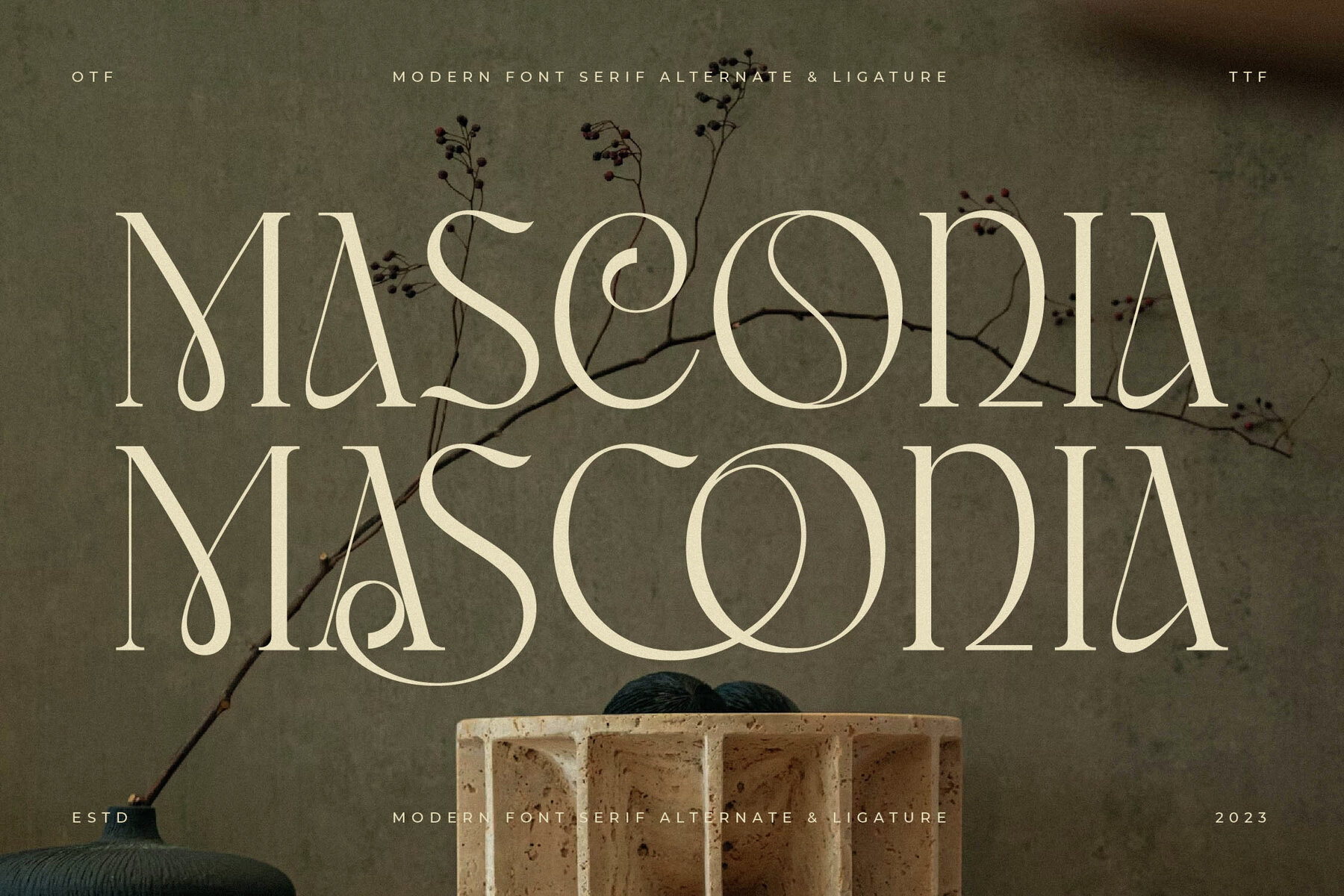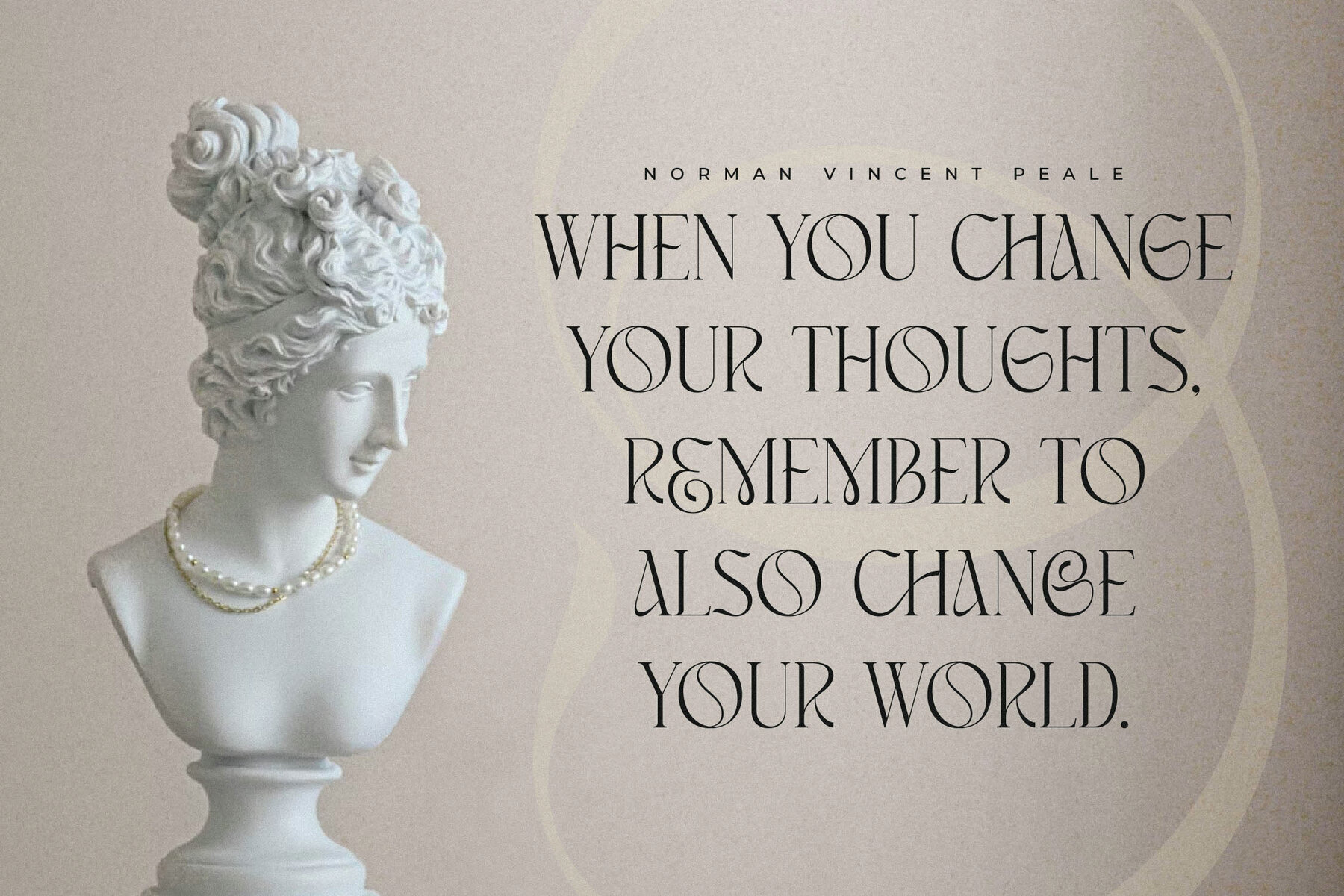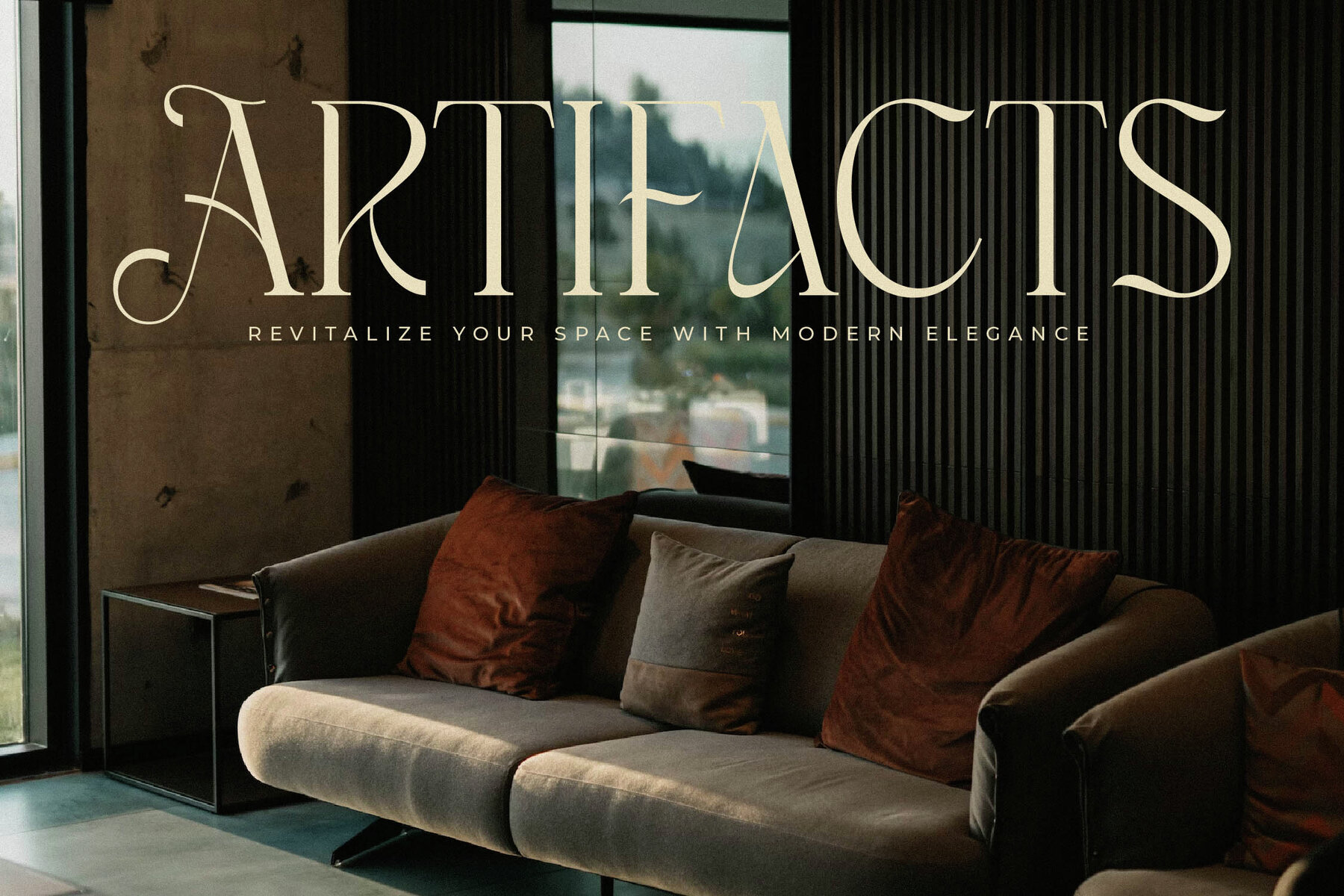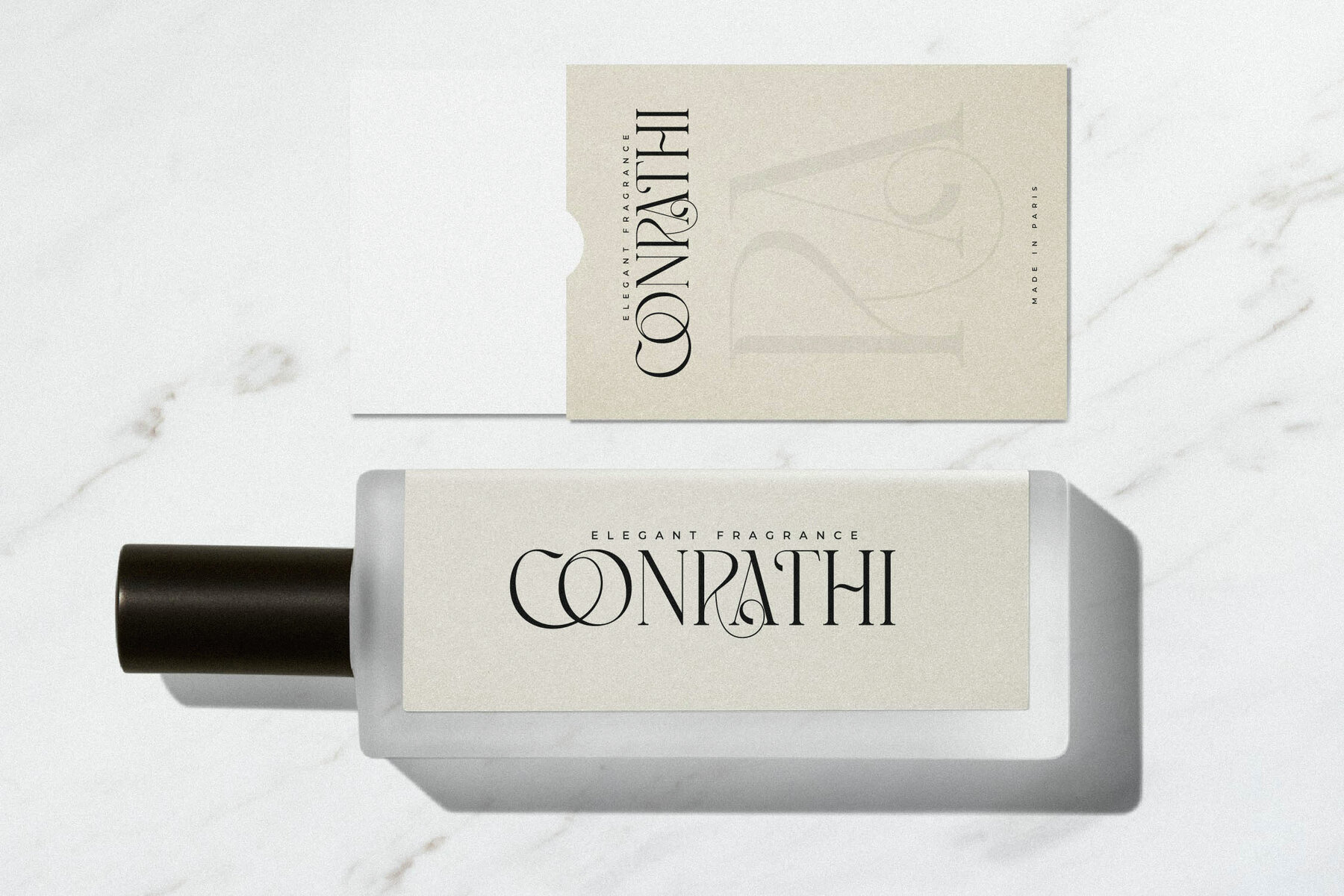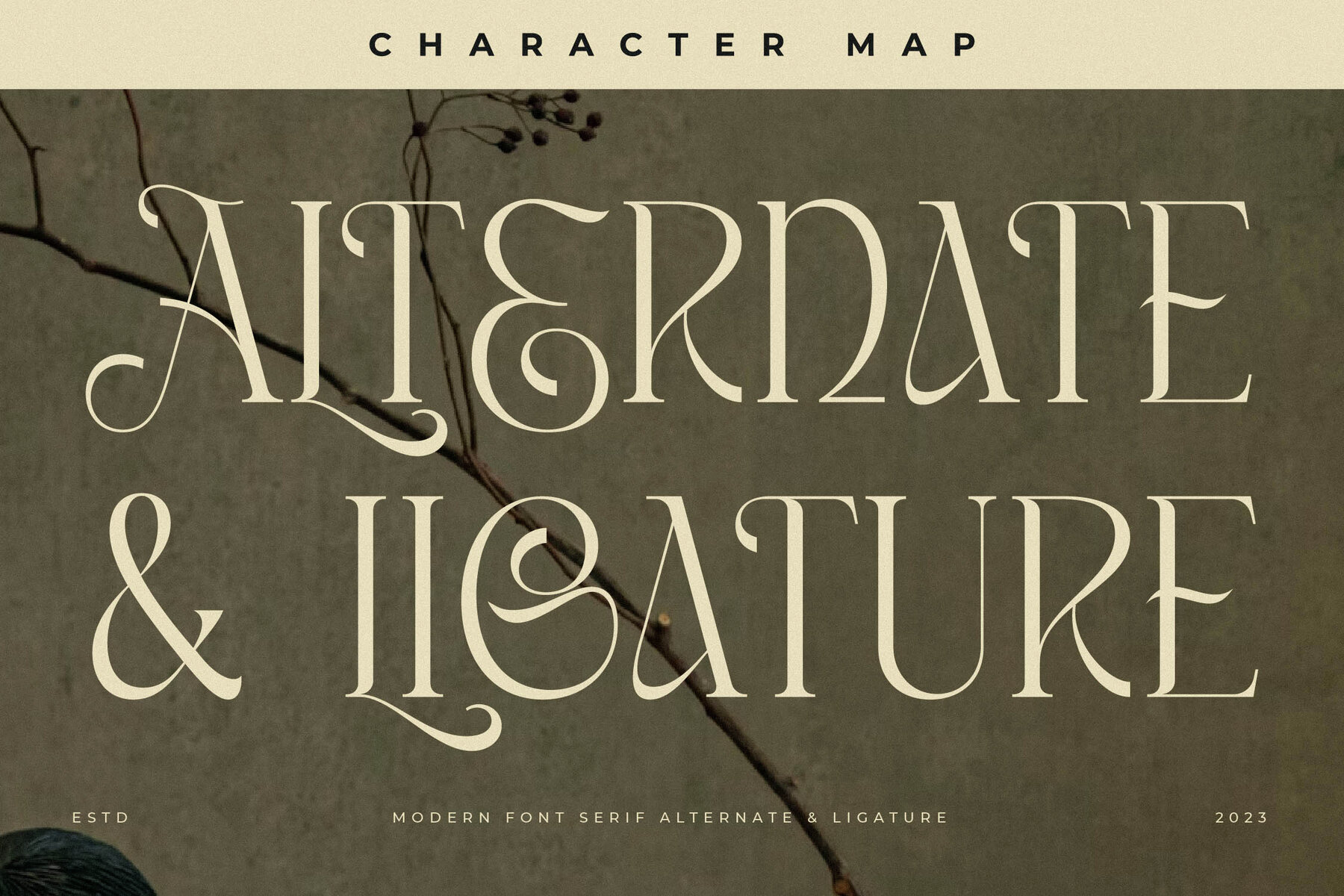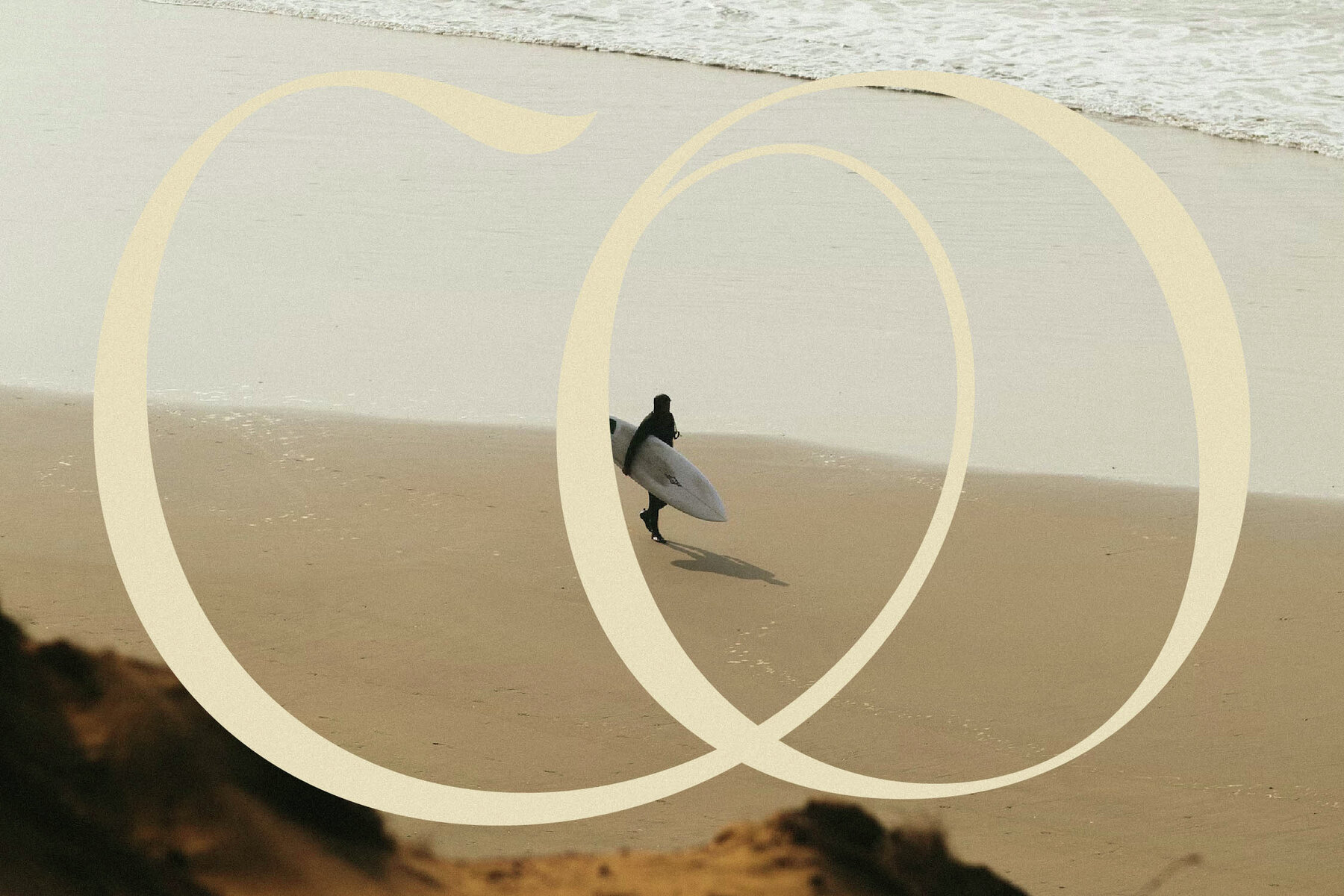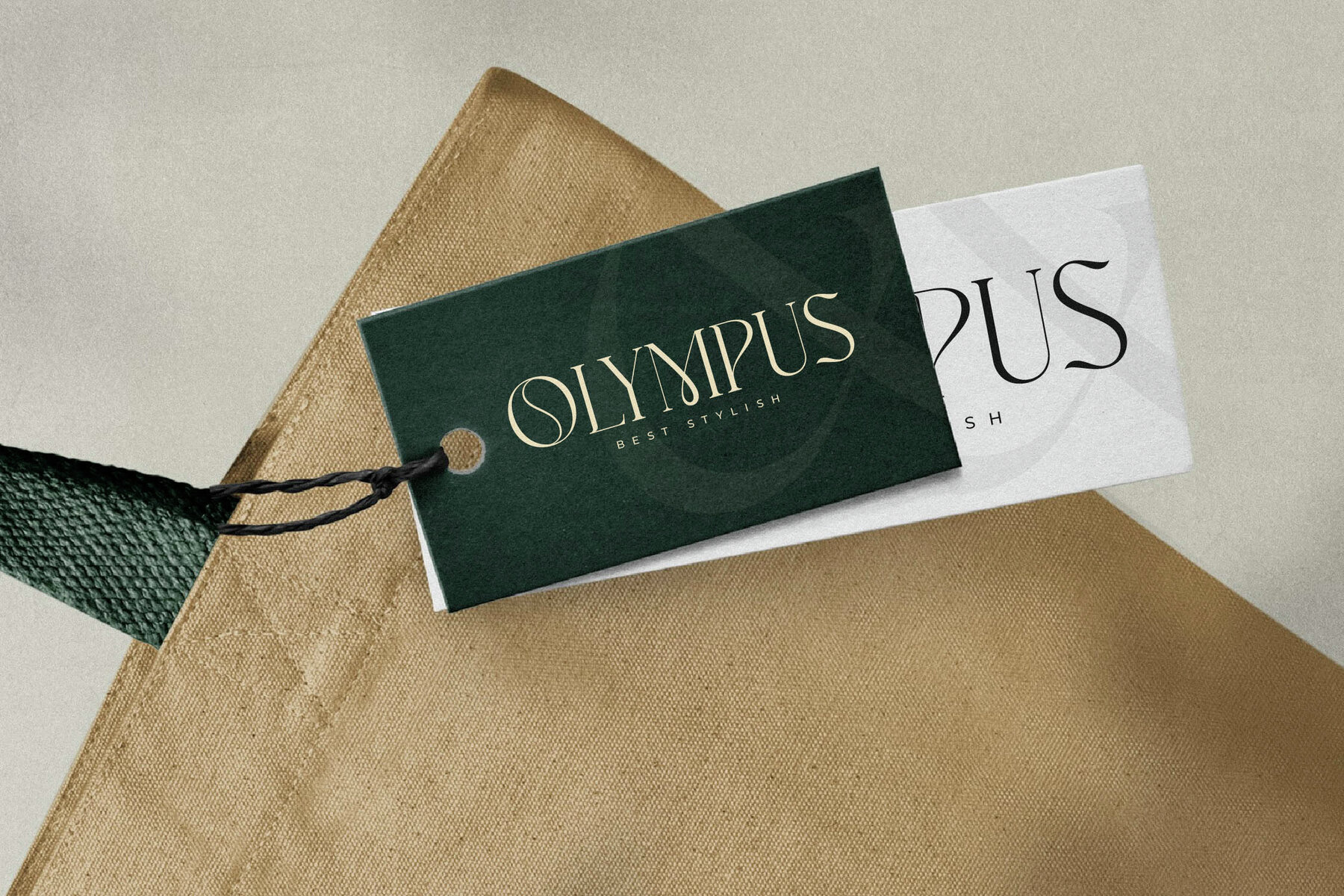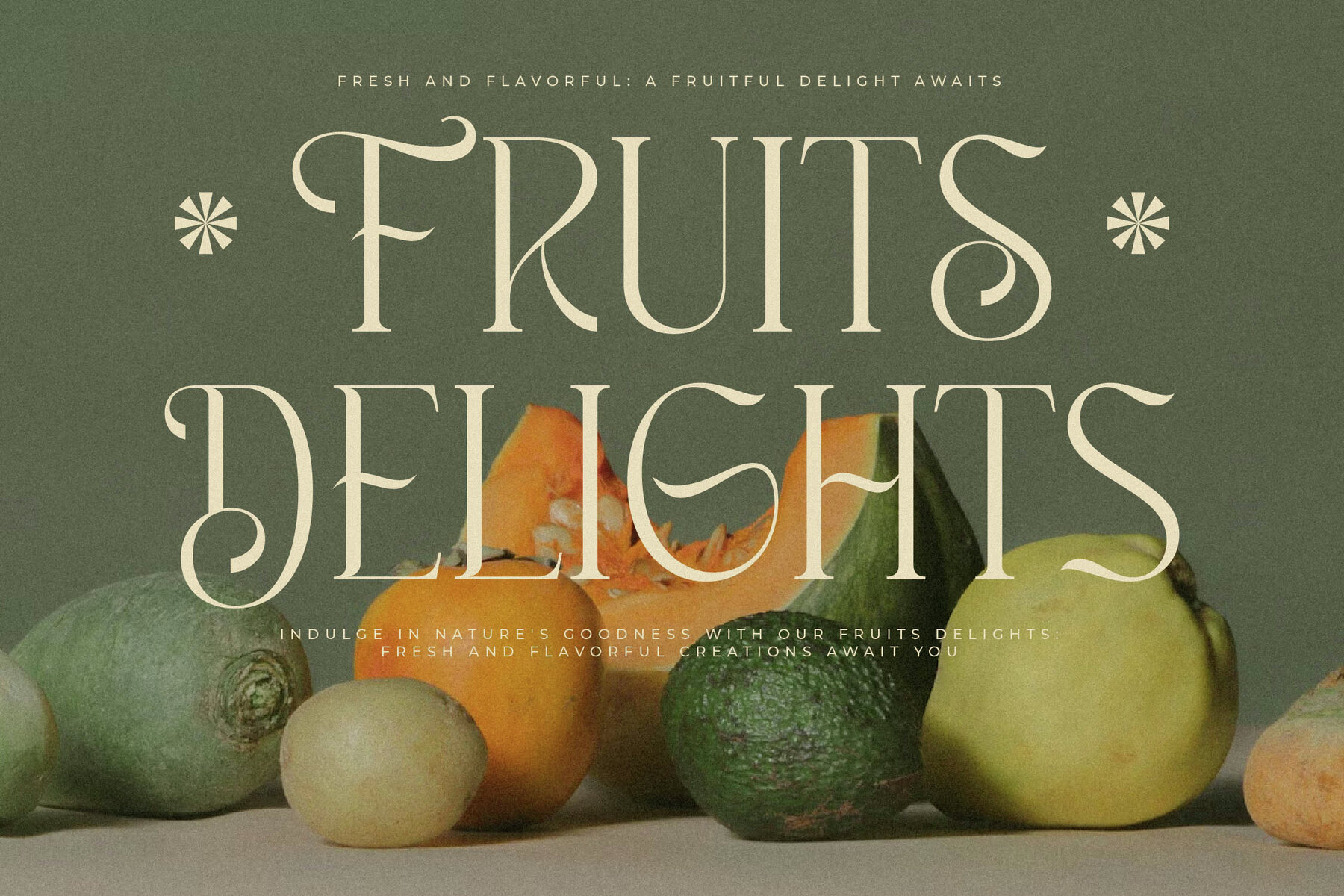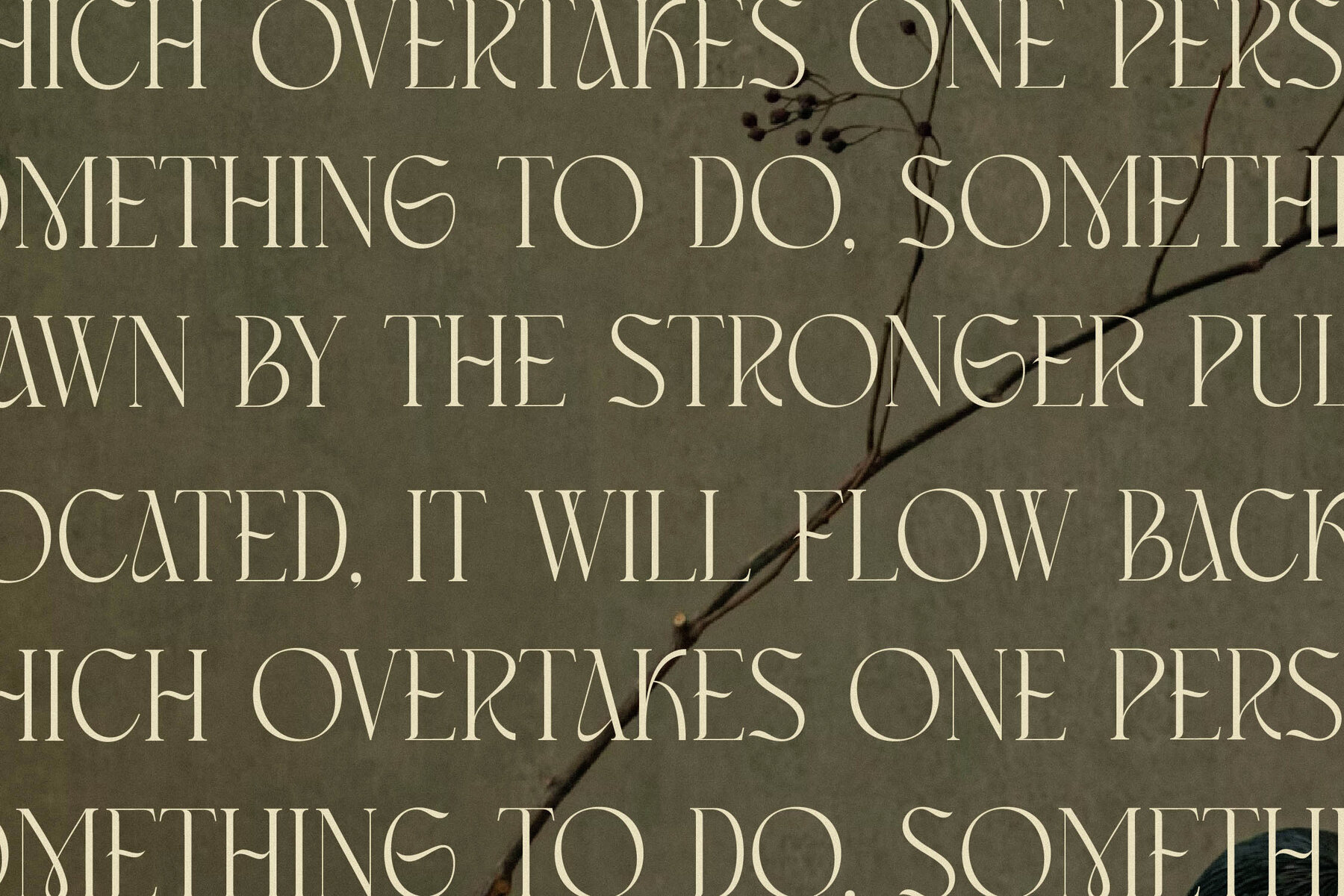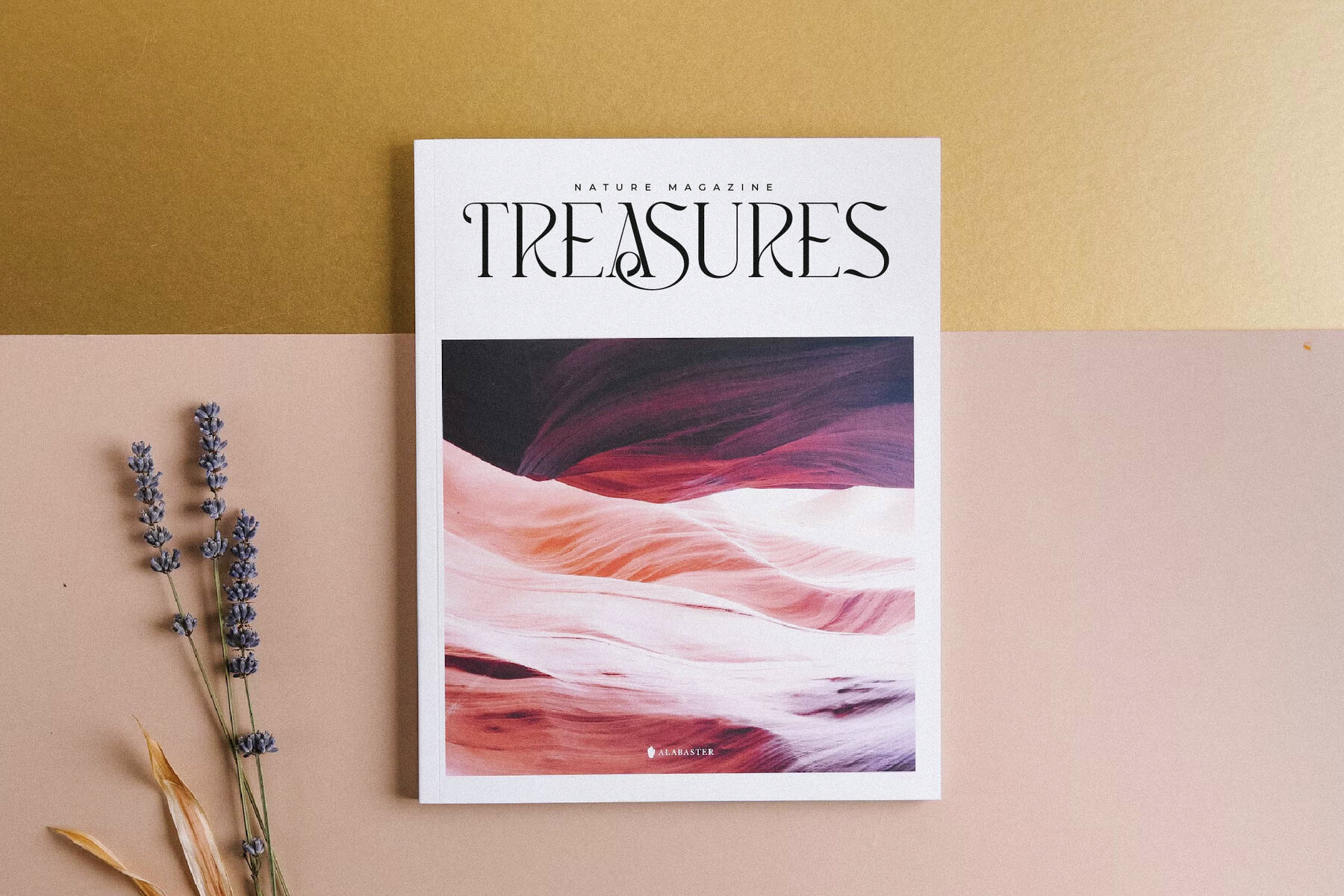
Masconia Font
Discover the elegance of the Masconia Typeface, a sophisticated blend of modern and classic serif styles by Storytype Studio. With its distinctive aesthetic, Masconia provides the ideal solution for crafting luxury logos, captivating book covers, cinematic titles, and fashion branding. Elevate your design process with this versatile typeface, designed to bring a touch of elegance and refinement to your creative projects.Masconia Typeface